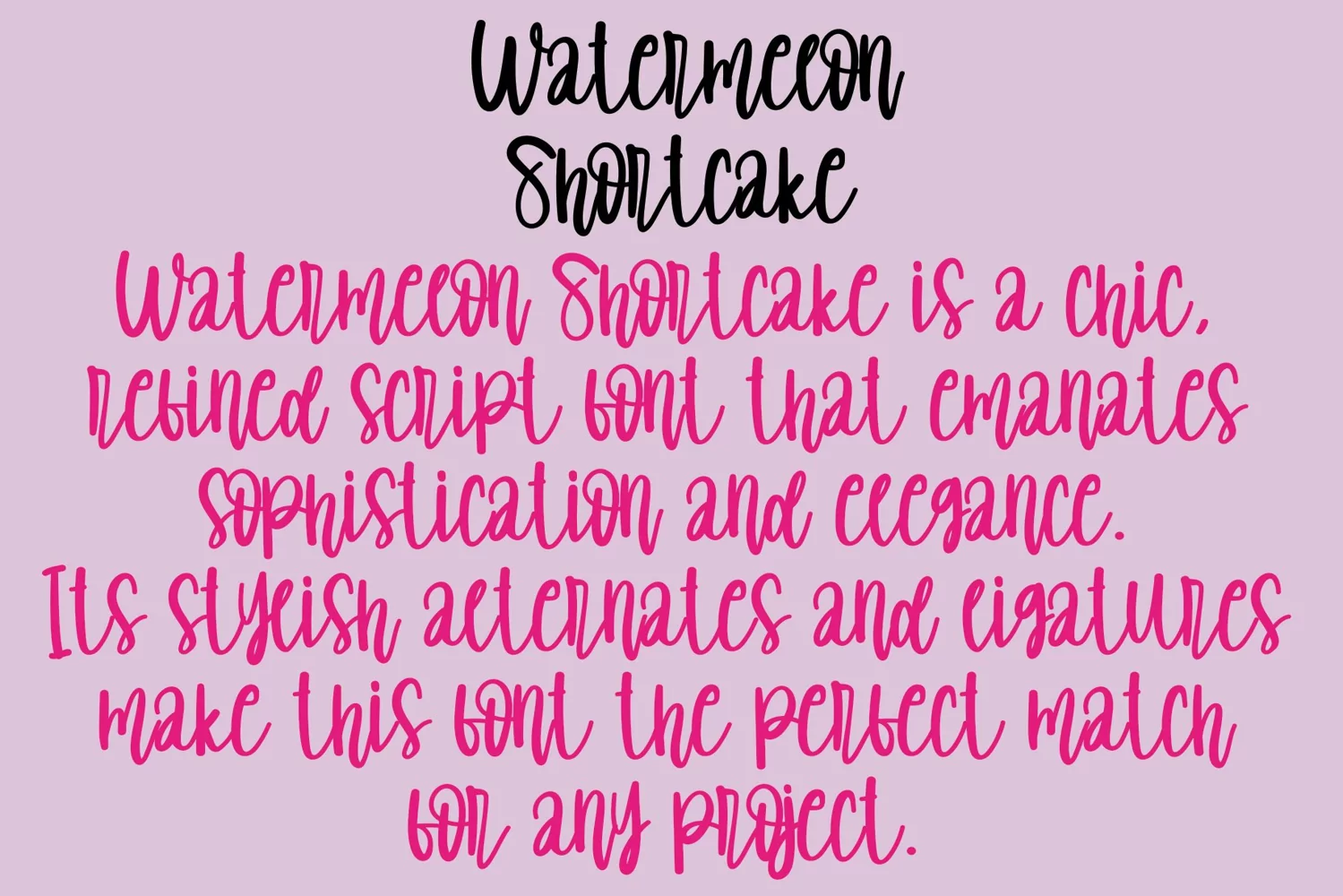
Watermelon Shortcake | handwritten font
Watermelon Shortcake | handwritten font is a popular and professional script font. It is Modern and elegant, this typeface is made of beautiful, creative strokes.